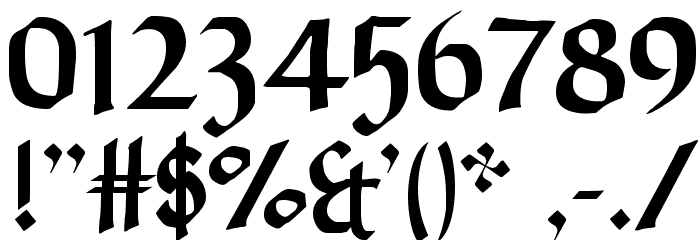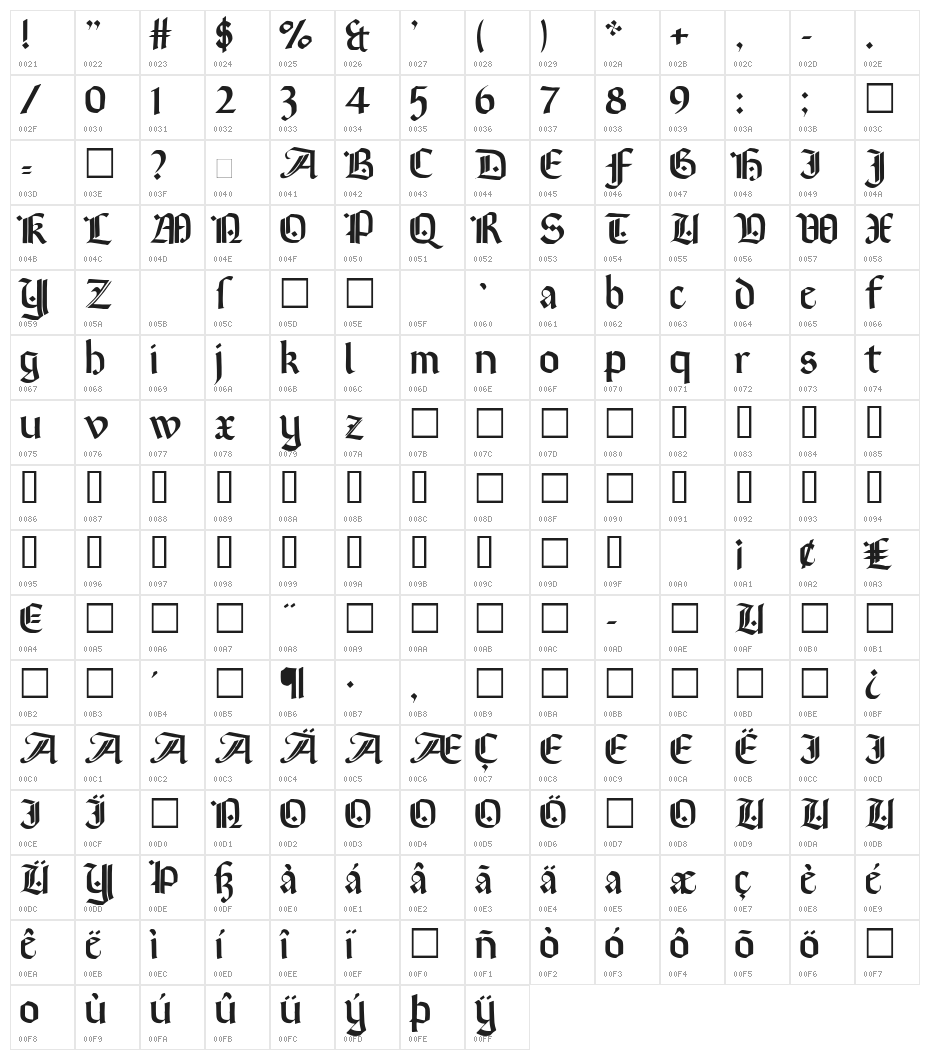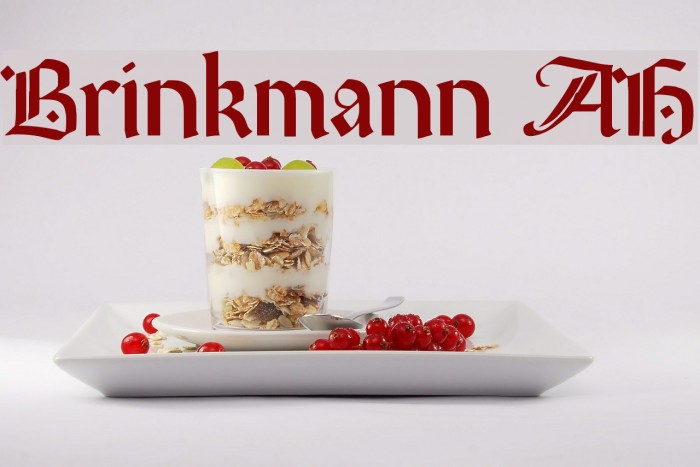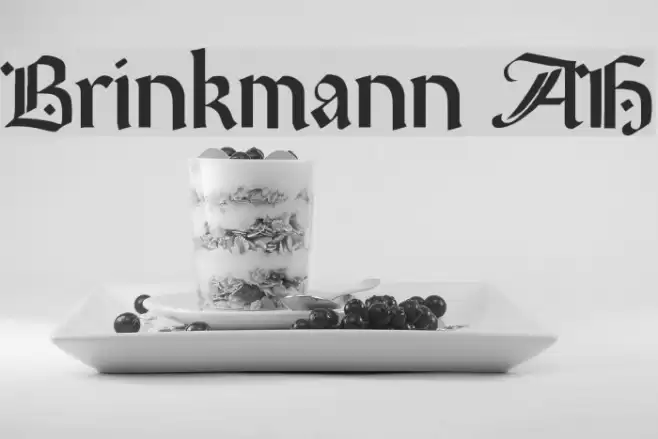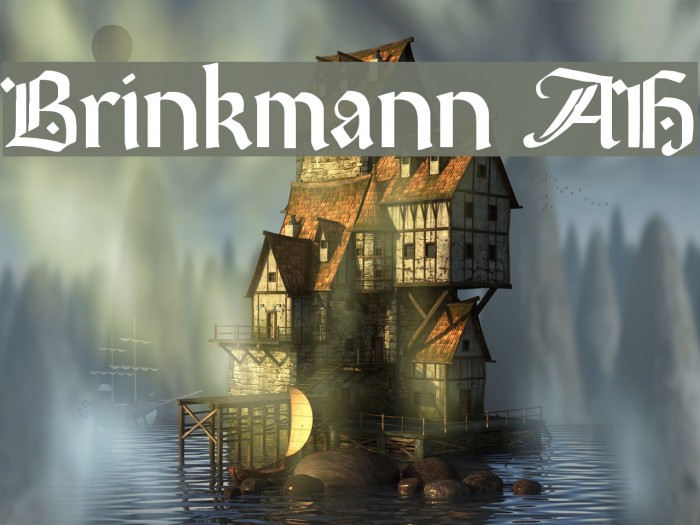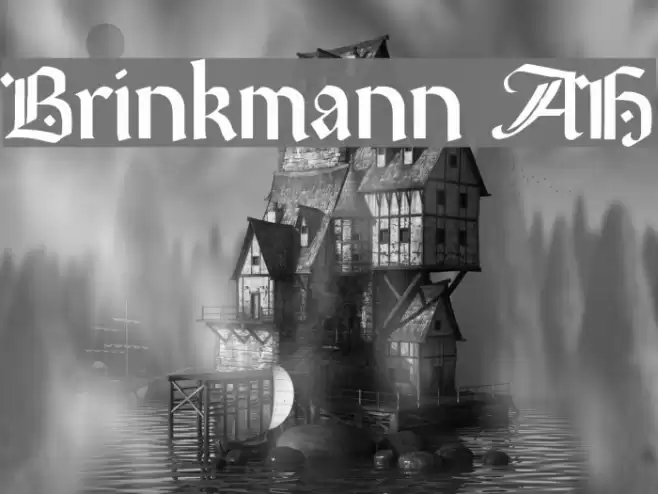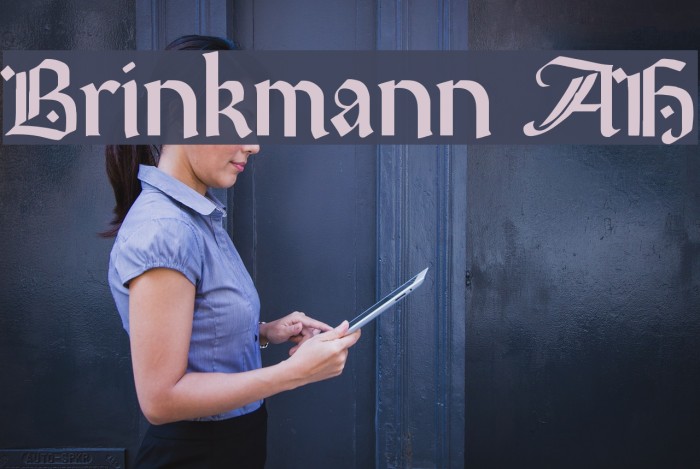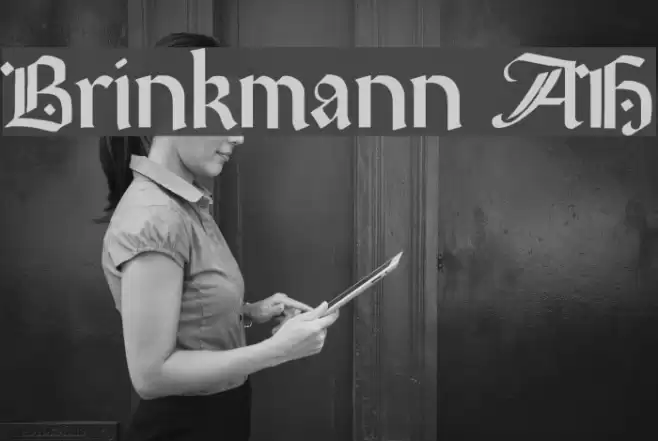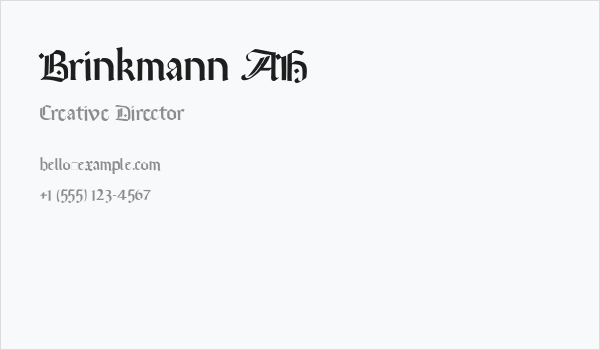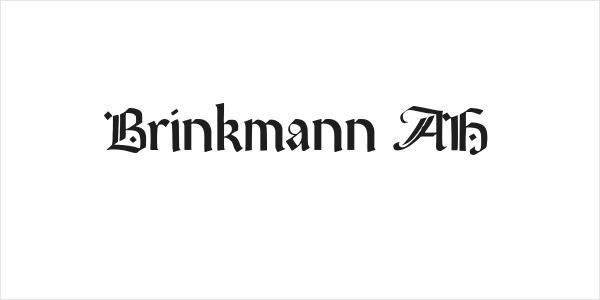
Brinkmann AH Font
Brinkmann AH Description
This font exhibits a classic blackletter style, characterized by its ornate and intricate letterforms. The uppercase letters feature sharp, angular lines with dramatic flourishes, while the lowercase letters maintain a more subdued yet still decorative appearance. The numerals are bold and consistent with the overall gothic aesthetic, providing a cohesive look across all characters. Special characters are equally stylized, enhancing the font's medieval and historical feel. The design is reminiscent of traditional calligraphy, making it suitable for projects that require a touch of elegance and antiquity.
| Proposed Projects | Ideal for historical documents, wedding invitations, certificates, book covers, and branding that requires a vintage or medieval touch. |